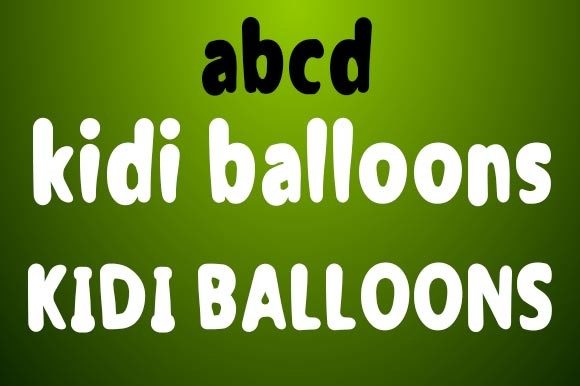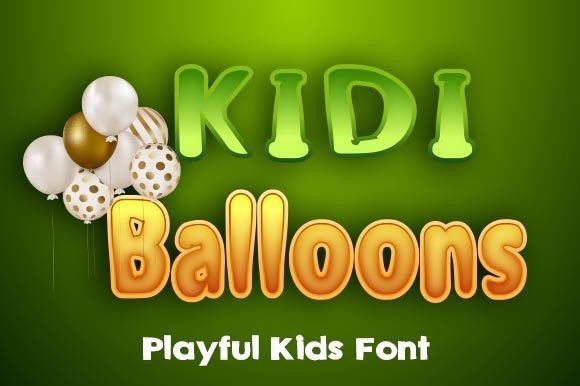
Introduction to Kidi Balloons Font
Kidi Balloons is a fun and friendly display font.
Whether you are using it for cartoon-related designs, children games, quotes, titles, brand names, book covers, posters, or just any creation that requires a touch of joy, this font is a great choice .
Key Features of Kidi Balloons Font
Why Choose Kidi Balloons Font?
Kidi Balloons Font offers exceptional quality and versatility, making it a valuable addition to your design toolkit. Whether you’re creating for personal projects or commercial use, Kidi Balloons Font delivers professional results.